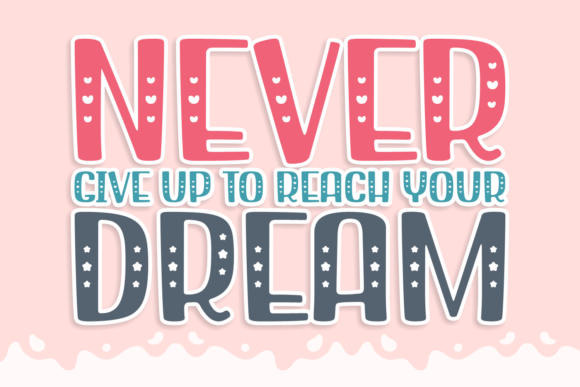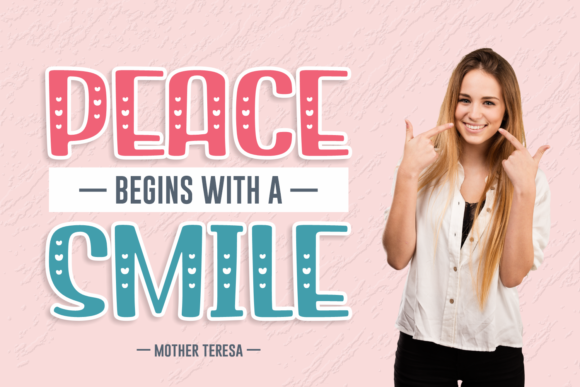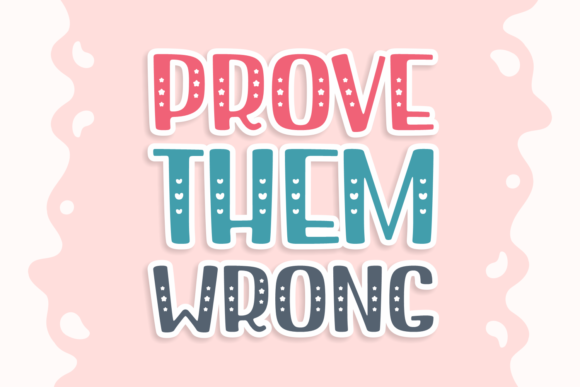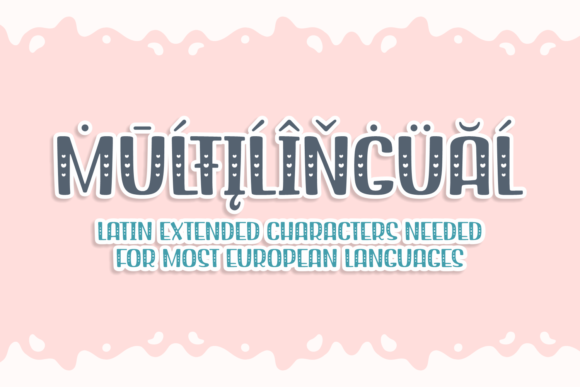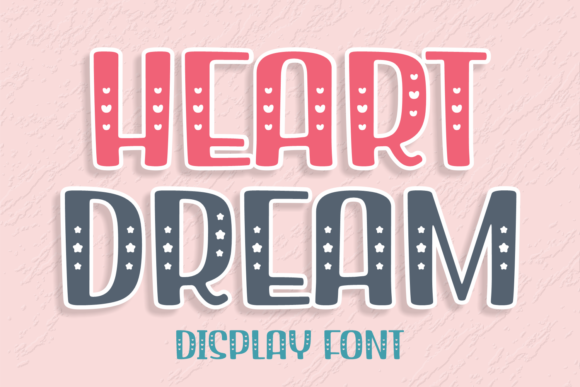
Introducing Heart Dream Font: The Perfect Choice for Fun and Creative Projects
Are you looking for a font that can add a touch of playfulness and festivity to your designs? Look no further than Heart Dream Font! This adorable display font is perfect for children’s activities, school projects, and any other creative endeavor that requires a dash of fun and authenticity.
What is Heart Dream Font?
Heart Dream Font is a cute, festive, and versatile display font that embodies the spirit of playfulness and creativity. Its unique design makes it an excellent choice for a wide range of projects, from kids’ party invitations and educational materials to craft projects and DIY tutorials.
Key Features of Heart Dream Font
• Cute and Festive Design: Heart Dream Font features a delightful design that’s sure to capture the attention of kids and adults alike. Its playful curves and lines make it perfect for creating fun and engaging visual content.
• Versatile: This font is incredibly versatile and can be used for a wide range of projects, from digital designs to print materials.
• Easy to Read: Despite its playful design, Heart Dream Font is easy to read, making it perfect for use in educational materials, children’s books, and other projects where legibility is crucial.
• Authentic: Heart Dream Font has an authentic, hand-crafted feel that’s sure to add a personal touch to your designs.
Uses for Heart Dream Font
Heart Dream Font is perfect for a wide range of projects, including:
• Kids’ Party Invitations: Create fun and engaging invitations for kids’ parties, complete with colorful graphics and playful text.
• Educational Materials: Use Heart Dream Font to create engaging and interactive educational materials, such as worksheets, activity sheets, and educational posters.
• Craft Projects: Add a touch of personality to your craft projects, such as DIY tutorials, handmade cards, and other paper crafts.
• School Projects: Heart Dream Font is perfect for school projects, such as presentations, posters, and reports.
Why Choose Heart Dream Font?
There are many reasons why Heart Dream Font is an excellent choice for designers and crafters. Here are just a few:
• Unique Design: Heart Dream Font features a unique design that’s sure to stand out from the crowd.
• High-Quality: Heart Dream Font is a high-quality font that’s designed to produce crisp, clear text at any size.
Tips for Using Heart Dream Font
Here are a few tips for using Heart Dream Font in your designs:
• Use it for Headings: Heart Dream Font is perfect for use in headings, titles, and other text elements that require a playful touch.
• Experiment with Colors: This font looks great in a wide range of colors, so don’t be afraid to experiment and find the perfect hue for your design.
• Pair it with Other Fonts: Heart Dream Font can be paired with other fonts to create a unique and visually appealing design.
Heart Dream Font is a cute, festive, and versatile display font that’s perfect for designers and crafters who want to add a touch of playfulness and authenticity to their projects. With its unique design, ease of use, and affordability, this font is an excellent choice for anyone looking to create fun and engaging visual content. So why wait? Download Heart Dream Font today and start creating!